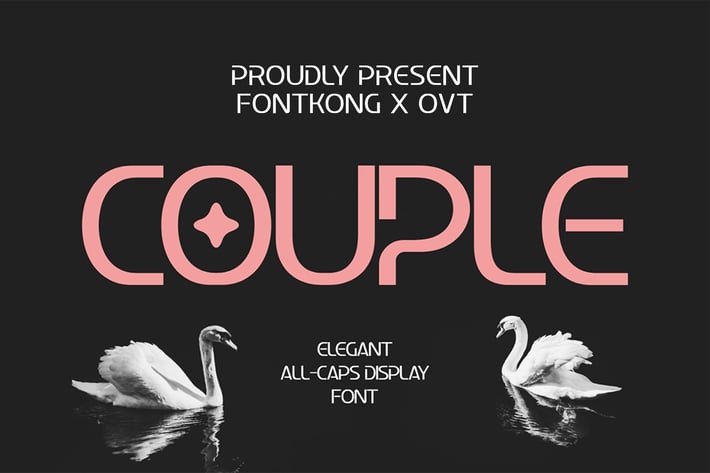
Couple - Elegant All Caps Display Font
Introducing "Couple," an elegant all caps display font that brings refined elegance and bold statements to your design projects. Perfect for graphic designers, typographers, and creatives aiming to add a touch of sophistication to their work, Couple offers a striking and versatile typeface that stands out with its all-caps design and graceful lines.
Ideal for branding, headlines, posters, invitations, and packaging, Couple’s distinctive characters provide a luxurious and captivating aesthetic. Each letter is meticulously crafted to ensure readability and visual impact, making your designs both impressive and memorable.
The "Couple" font includes a complete set of uppercase letters, numbers, punctuation marks, and special characters. This comprehensive set ensures seamless integration into various design projects, from stylish branding to elegant invitations.
Elevate your designs with Couple, the elegant all caps display font that combines refined elegance with bold statements.
Introducing "Couple," an elegant all caps display font that brings refined elegance and bold statements to your design projects. Perfect for graphic designers, typographers, and creatives aiming to add a touch of sophistication to their work, Couple offers a striking and versatile typeface that stands out with its all-caps design and graceful lines.
Ideal for branding, headlines, posters, invitations, and packaging, Couple’s distinctive characters provide a luxurious and captivating aesthetic. Each letter is meticulously crafted to ensure readability and visual impact, making your designs both impressive and memorable.
The "Couple" font includes a complete set of uppercase letters, numbers, punctuation marks, and special characters. This comprehensive set ensures seamless integration into various design projects, from stylish branding to elegant invitations.
Elevate your designs with Couple, the elegant all caps display font that combines refined elegance with bold statements.